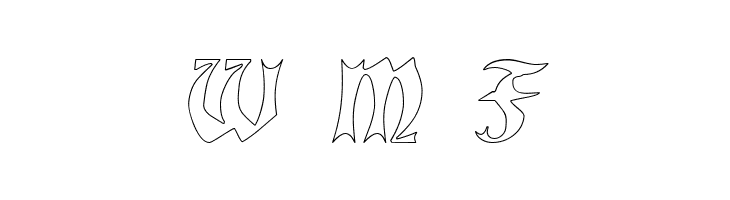
• Quagralle Font
A dynamic and fluid script font with elegant, flowing letterforms.
• Quaint Font
( Fonts by Rick Mueller )
A playful, hand-drawn font with bold, uneven strokes and quirky serifs.
• Quaint Font
A dynamic script font with flowing, cursive letterforms and artistic flair.
• Quainte Font
( Fonts by Dave Fabik - home.teleport.com/~dfabik/ )
• QUAKE Font
• Quake & Shake Font
A bold, angular font with a dynamic, geometric style.
• Quake & Shake 3D Font
A bold, 3D geometric font with a playful, dynamic style.
• Quake & Shake Condensed Font
A bold, angular, and geometric font with a condensed width and dynamic style.
• Quake & Shake Max Font
A bold, angular font with a dynamic and energetic style.
• Quake & Shake SuperMax Font
A bold, angular font with a dynamic, geometric style.